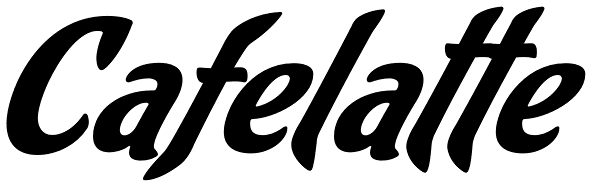
Cafelatte
It's not everyday that you want to have dark chocolate with your favorite latté. But sometimes, as out of the ordinary as it is, it can be just the ticket. Cafelatte's design offers a somewhat unpolished calligraphic concept, reminiscent of wooden...
Cafelatte
Cafelatte Alt